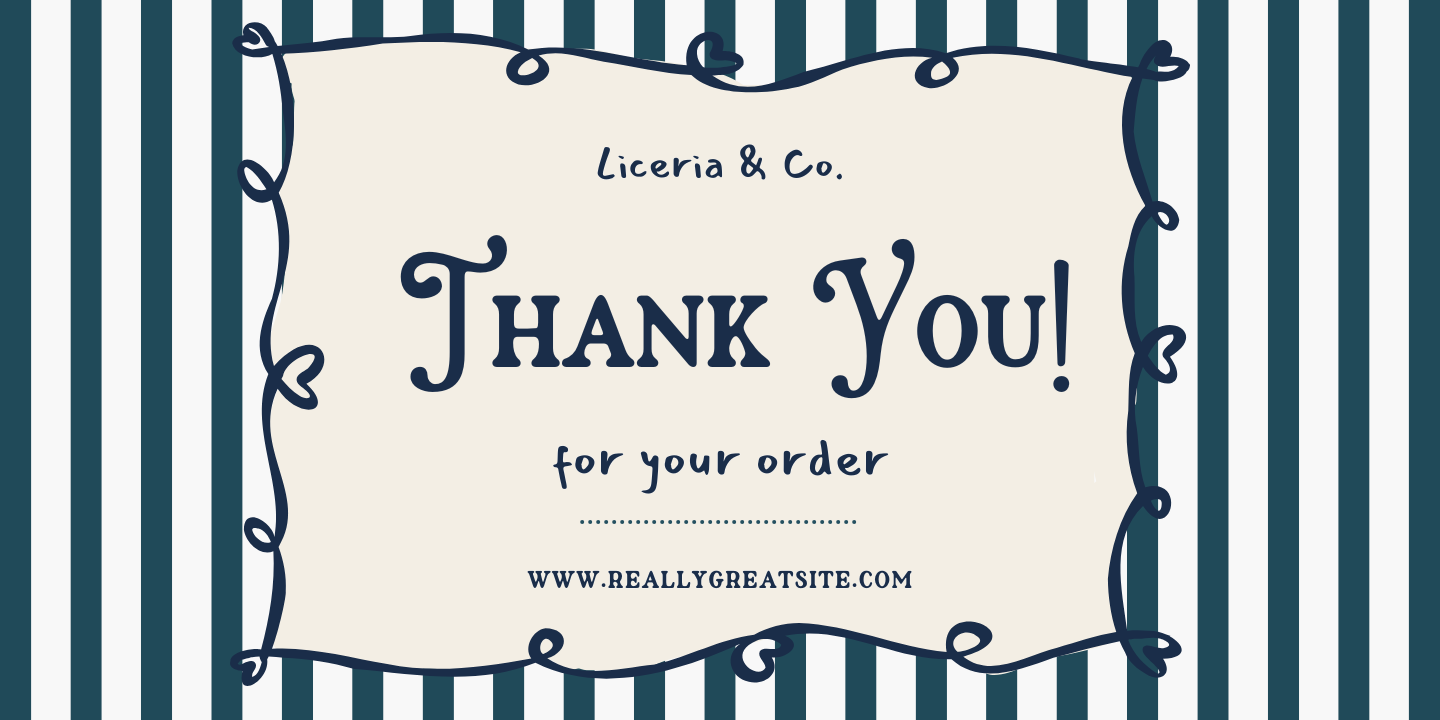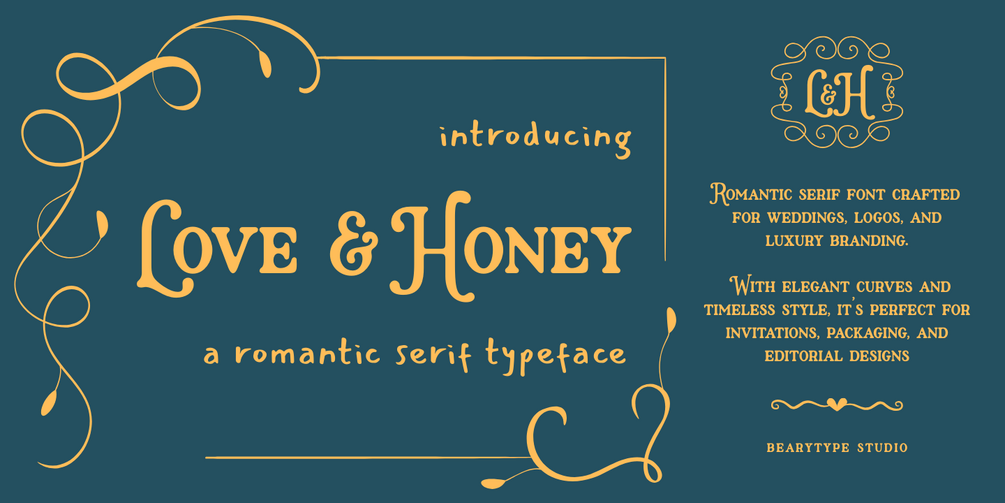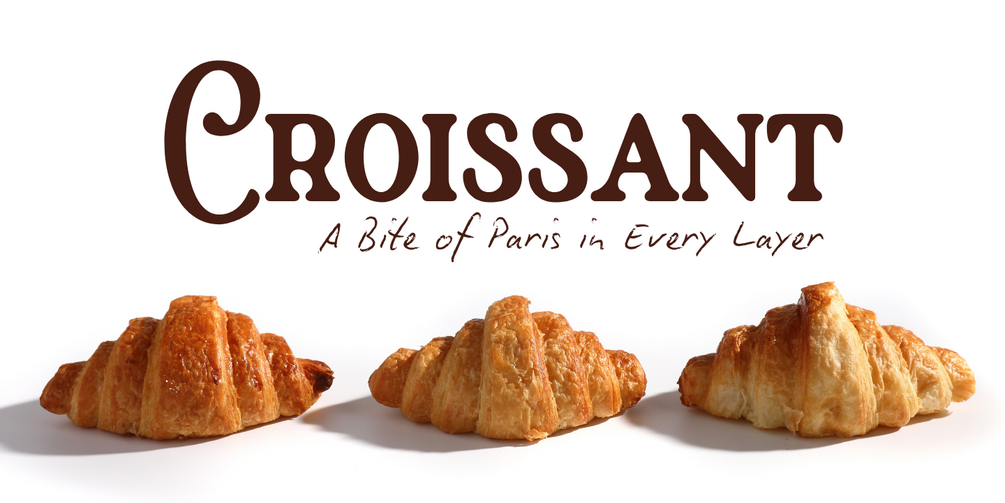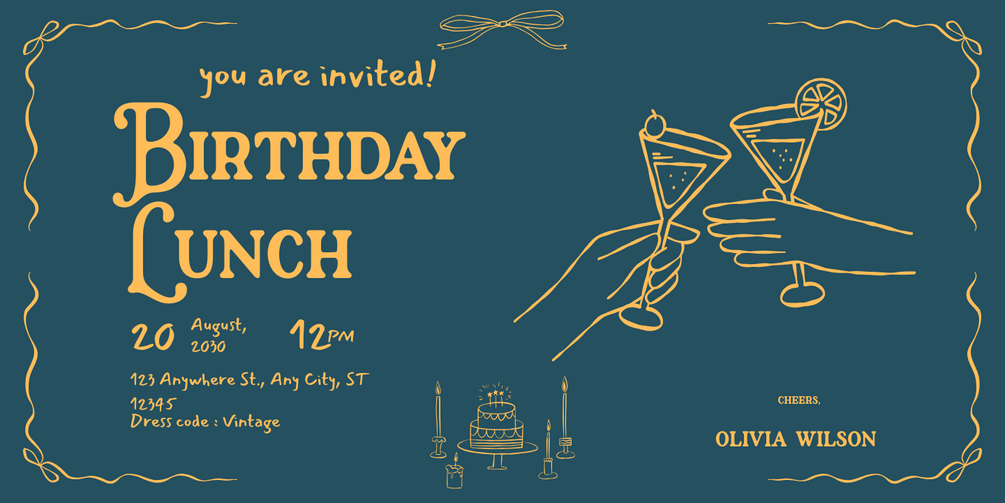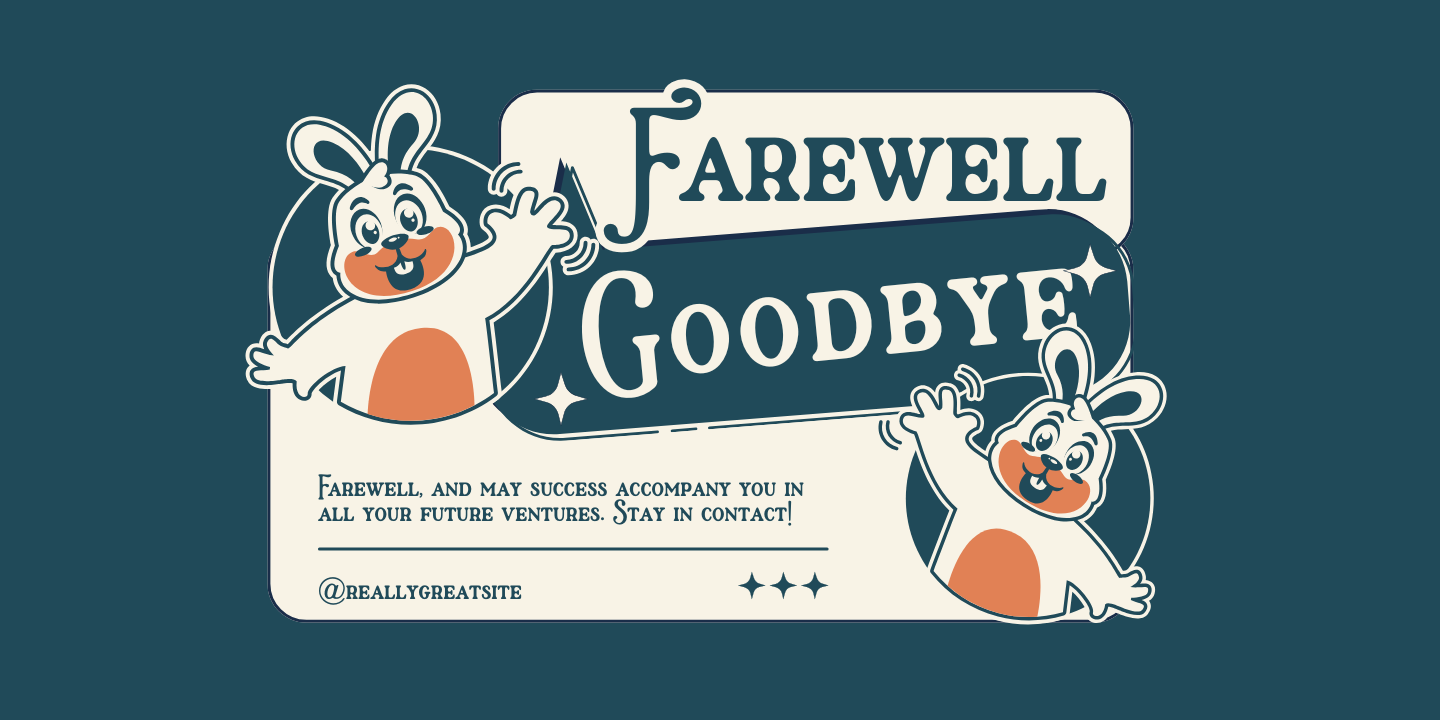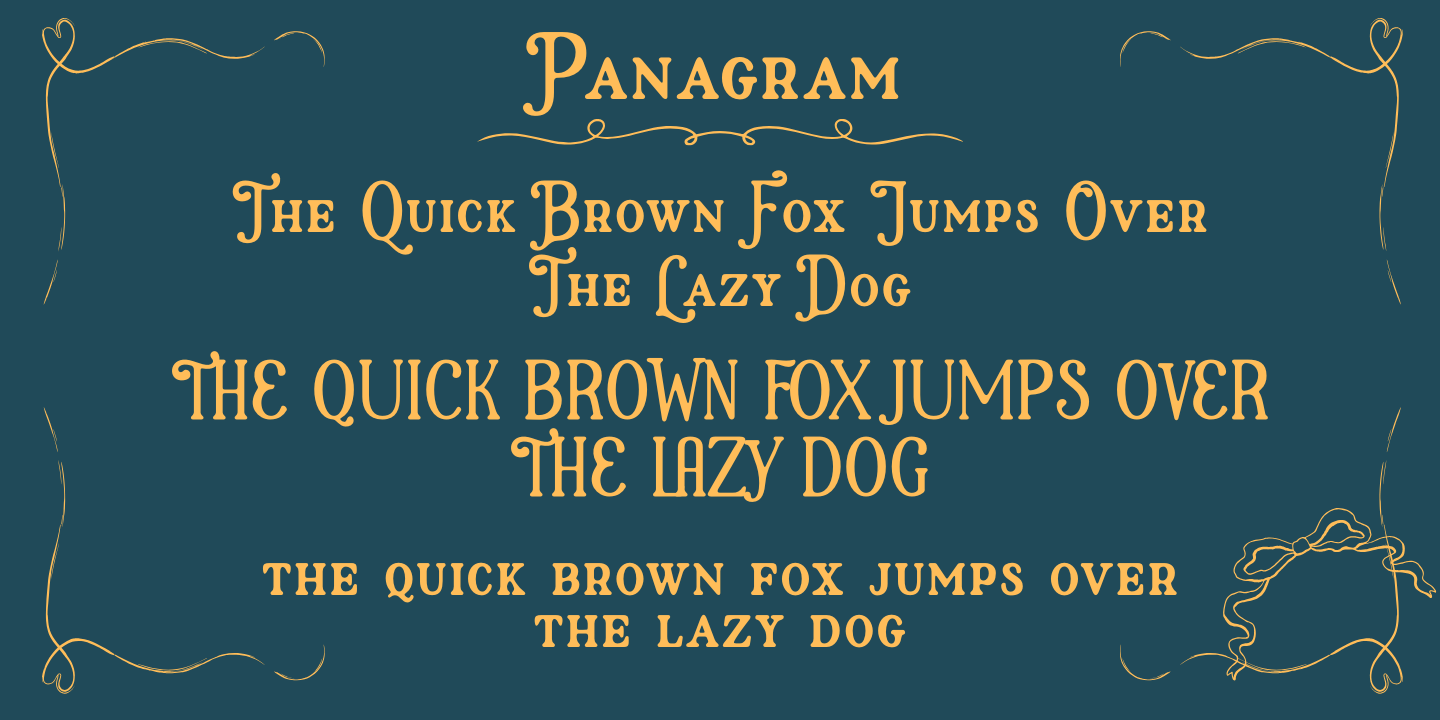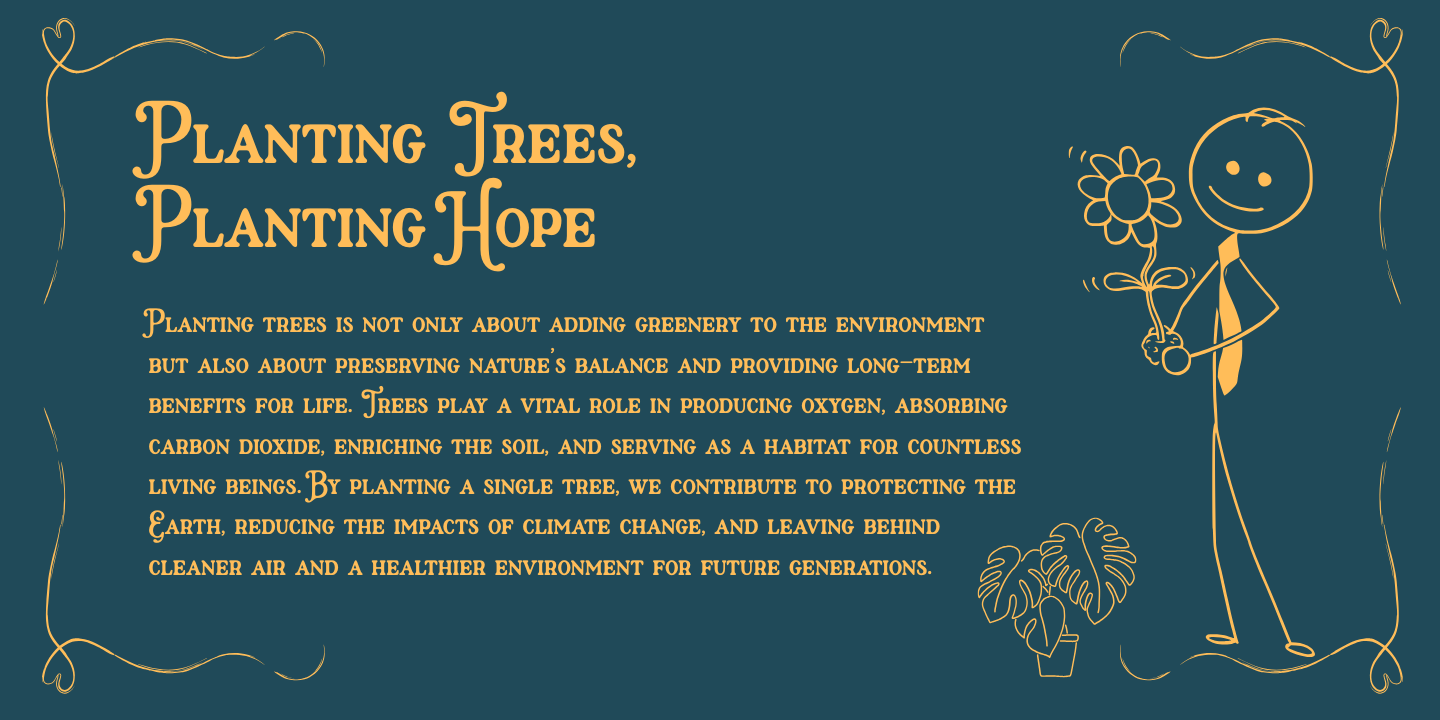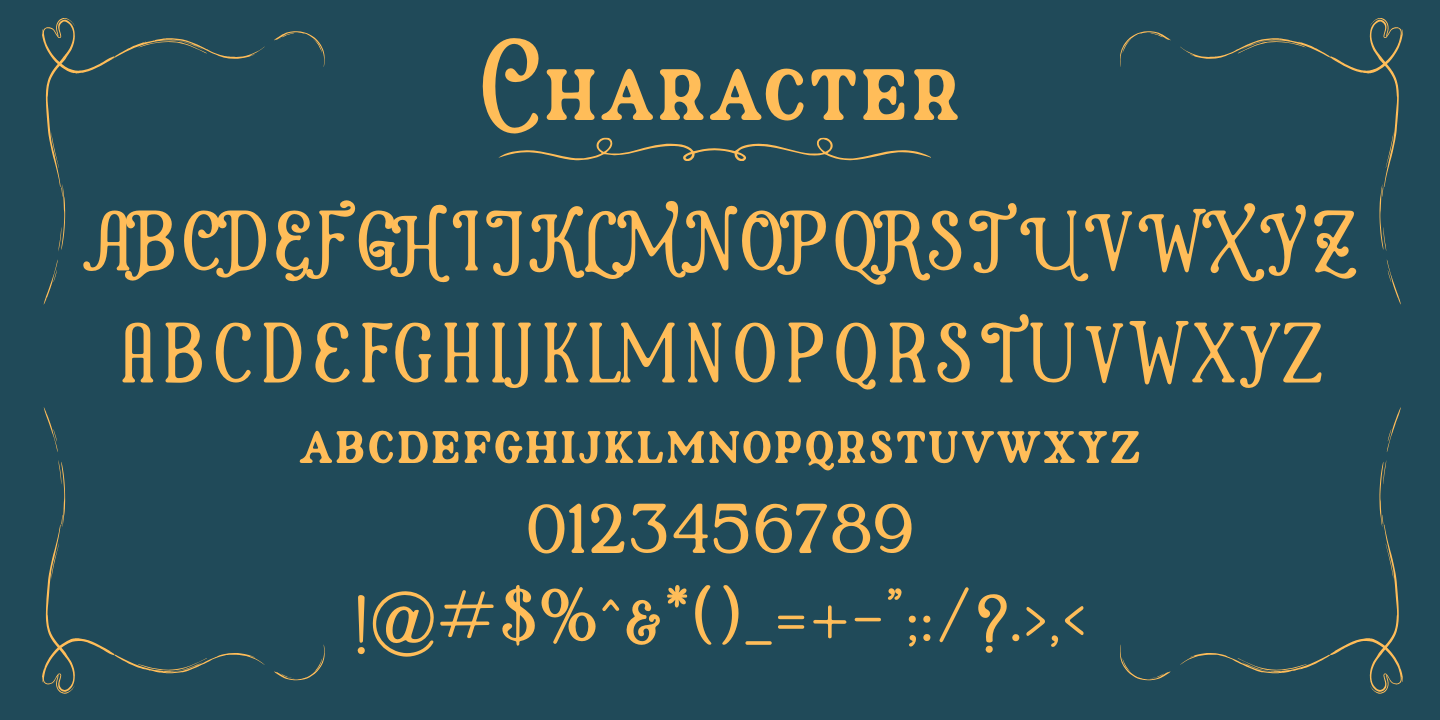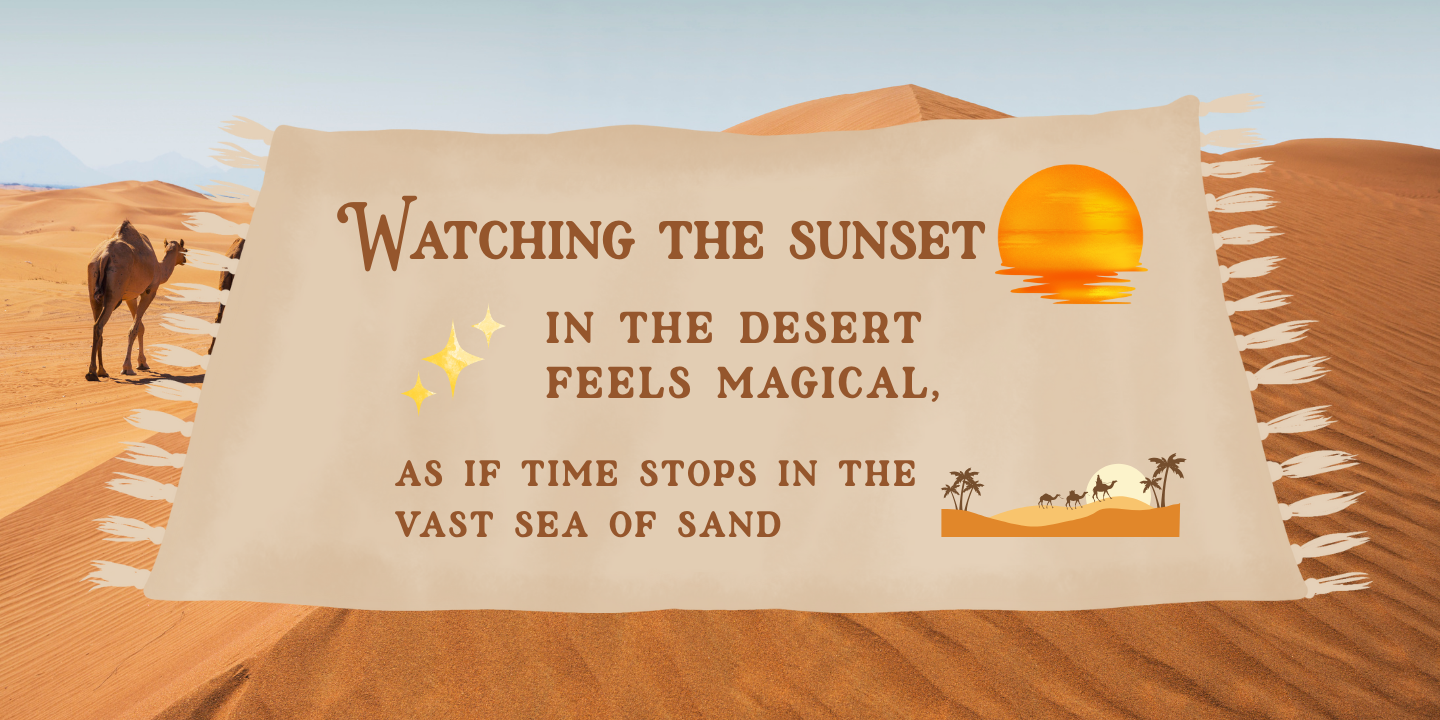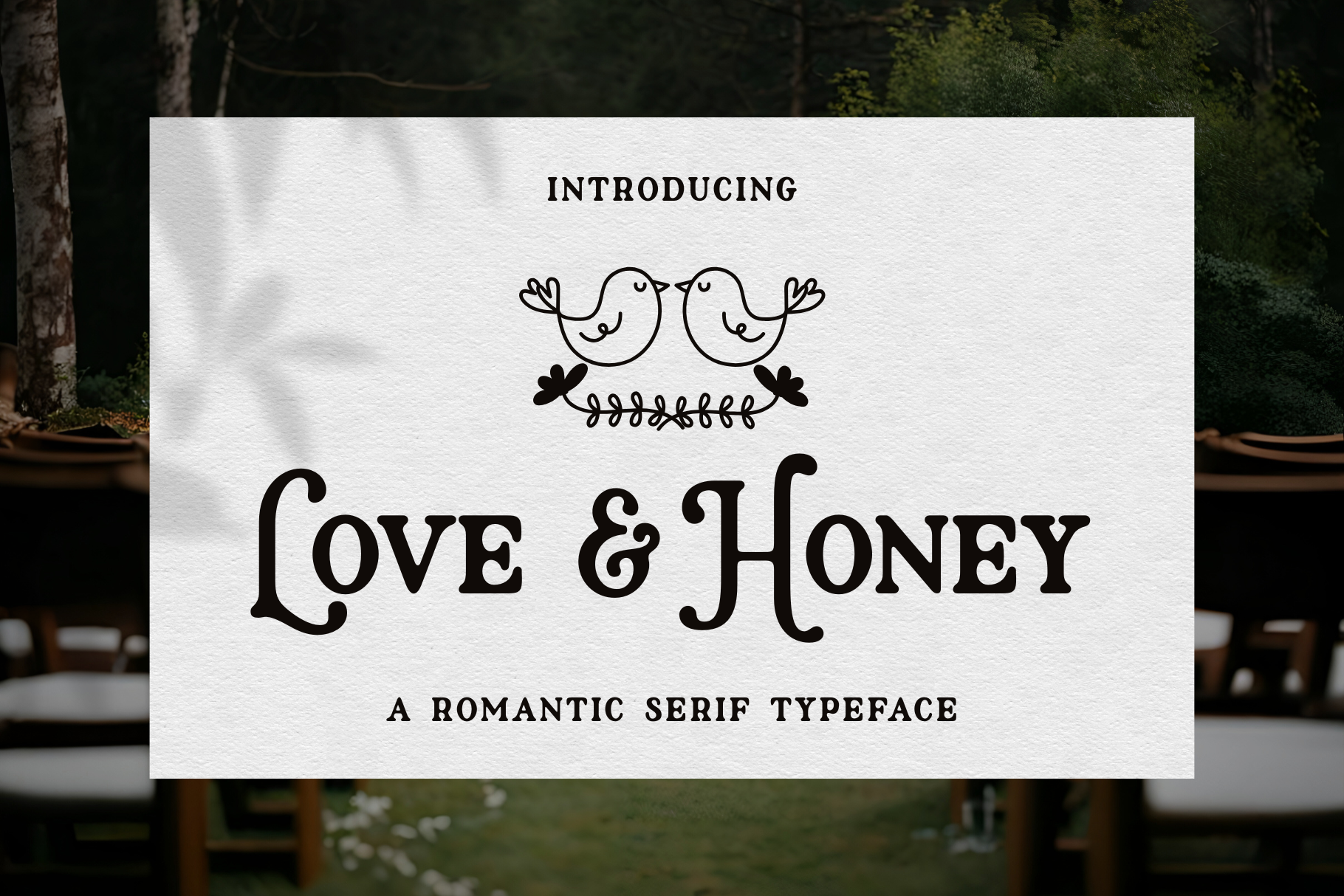
Love And Honey – A Romantic Serif Typeface
Love And Honey – Elegant Serif Font
Love And Honey is a modern serif font that blends timeless elegance with a romantic touch. Designed by bearytype Studio, this typeface is perfect for wedding invitations, luxury branding, logo design, packaging, and editorial projects. With smooth curves and refined letterforms, Love And Honey brings a sophisticated yet warm aesthetic, making it versatile for both print and digital use.
Key Features:
• Elegant serif style with soft details
• Perfect for wedding stationery and romantic design projects
• Suitable for logos, packaging, and editorial layouts
• Includes uppercase, lowercase, numbers, and punctuation (245 glyphs)
• Optimized for print & digital design